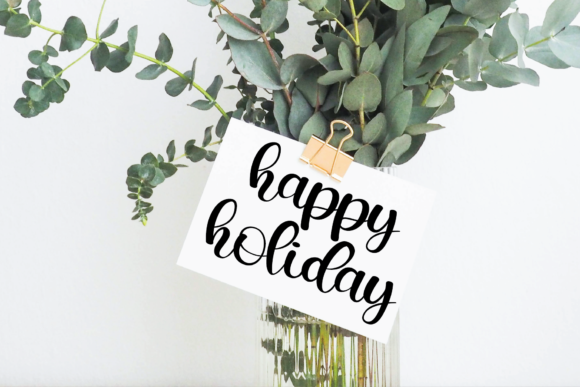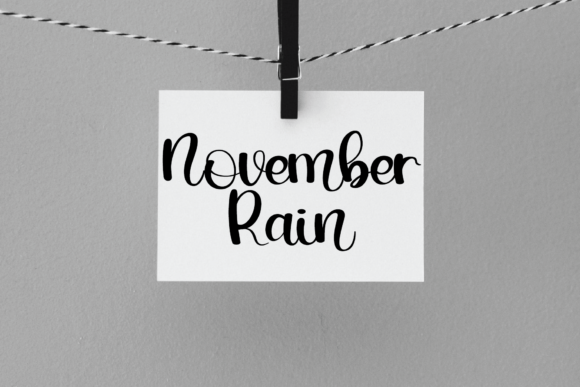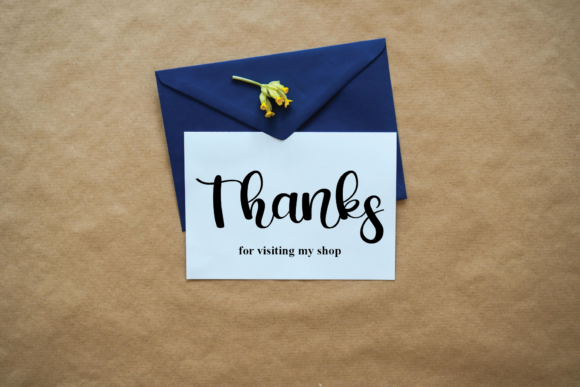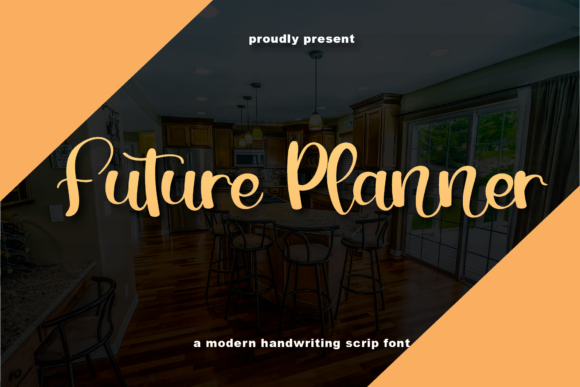
Introducing Future Planner Font: Elevate Your Designs with Elegant Script
In the world of typography, a well-crafted font can make all the difference in elevating your design projects from ordinary to extraordinary. For designers and crafters seeking a touch of sophistication and elegance, the Future Planner Font is an exceptional choice. This stunning script font is inspired by timeless classic calligraphy, bringing a contemporary atmosphere and impeccable form to your creations.
The Inspiration Behind Future Planner Font
Future Planner Font draws its inspiration from the classic calligraphy of the past, yet presents itself with a modern twist. The creator aimed to strike a balance between tradition and innovation, resulting in a font that is both elegant and versatile. This beautiful script font boasts a unique character that adds a touch of refinement to any project it’s used in.
Key Features of Future Planner Font
• Balanced and Varied: Future Planner Font is designed with balance and variation in mind. It strikes the perfect chord between being too thin and too thick, making it suitable for a wide range of applications.
• Elegant and Contemporary: With its roots in classic calligraphy, this font brings an air of elegance and sophistication to your designs. Its contemporary atmosphere ensures it remains relevant and fresh.
• Impeccable Form: The font’s design focuses on impeccable form, ensuring that each letter and character is crafted with precision and attention to detail.
• Versatility: Future Planner Font is versatile enough to be used in various design projects, from branding and advertising to packaging and personal stationery.
Who Can Benefit from Future Planner Font?
Future Planner Font is a valuable asset for a wide range of designers and crafters, including:
• Graphic Designers: Those working on branding, logos, and advertising materials will find this font to be a great addition to their toolkit.
• Stationery Designers: Designers creating personal stationery, such as wedding invitations, greeting cards, and journals, will appreciate the font’s elegance and charm.
• Packaging Designers: For those working on product packaging, Future Planner Font offers a sophisticated and eye-catching solution.
• Crafters: Crafters who enjoy making DIY projects, such as planners, journals, and scrapbooking, will love the font’s versatility and aesthetic appeal.
Tips for Using Future Planner Font Effectively
To get the most out of Future Planner Font, consider the following tips:
• Pair with Complementary Fonts: Combine Future Planner Font with simpler fonts to create visual interest and hierarchy in your designs.
• Experiment with Sizes: Play around with different font sizes to emphasize certain words or phrases and add depth to your designs.
• Use for Headings and Titles: The font’s elegant and script nature makes it perfect for headings and titles, adding a touch of sophistication to your projects.
Future Planner Font is a beautiful and versatile script font that can elevate your design projects to new heights. Its elegant and contemporary atmosphere, inspired by timeless classic calligraphy, makes it an excellent choice for designers and crafters seeking to add a touch of sophistication to their creations. With its balanced and varied design, impeccable form, and wide range of applications, Future Planner Font is sure to become a valuable asset in your design toolkit.